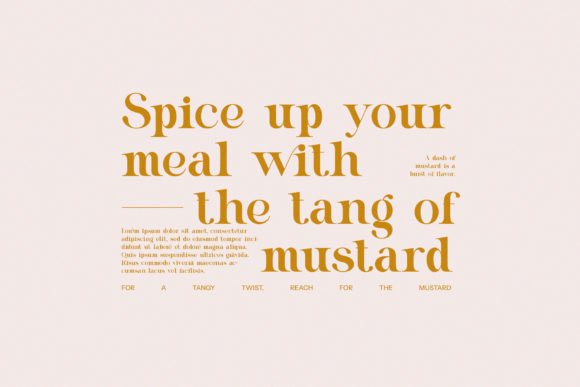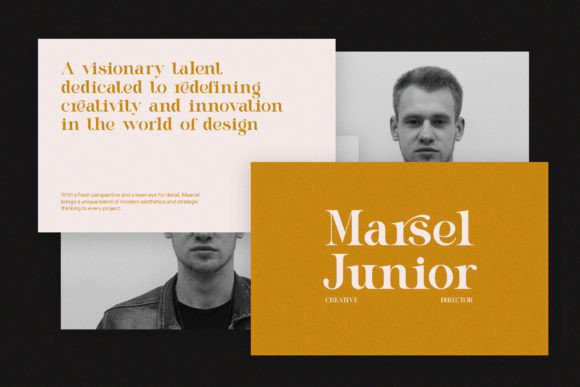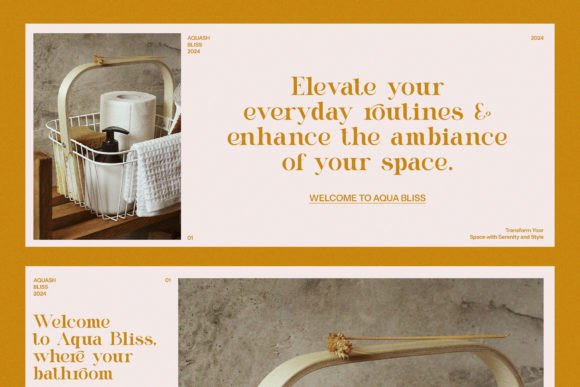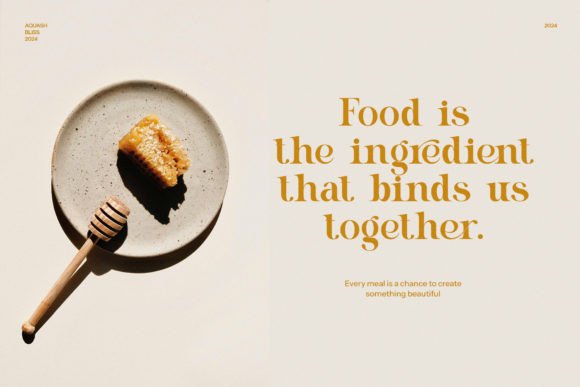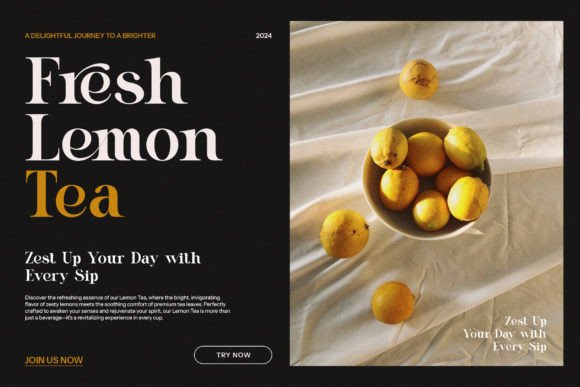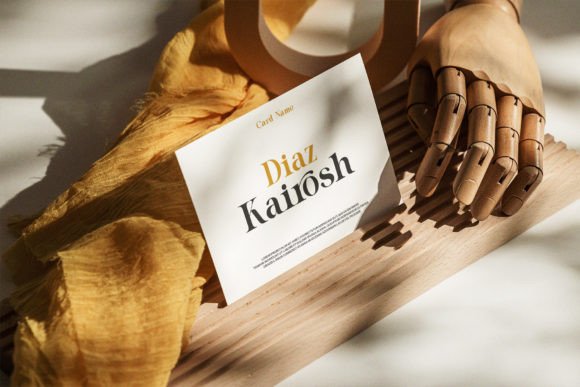
Introduction to Meragi Font
As a designer, there’s nothing quite like the rush of seeing a creative project come to life. The feeling of combining the perfect typography, color palette, and imagery to convey a message or evoke an emotion is truly exhilarating. But what if you had a secret design resource that could elevate your work to the next level? Enter Meragi Font, a sophisticated ligature serif that’s about to become your new go-to.
With its premium quality and luxury feel, Meragi Font is the perfect addition to any design project. Whether you’re working on a high-end fashion brand, a luxury magazine, or a wedding invitation, this typeface is sure to make a statement. And with its unique ligatures, you’ll be able to stand out from the crowd and make your design truly unforgettable.
Honest Review: Meragi Font
As a designer, I’m always on the lookout for high-quality design resources to elevate my creative projects. Recently, I stumbled upon the Meragi Font, and I’m excited to share my honest review.
First impressions count, and the Meragi Font doesn’t disappoint. It has a modern and elegant feel that’s perfect for any design project. One of the standout features of this font is its versatility – it can be used for both digital and print designs.
- What works well: ✨ The Meragi Font is incredibly easy to use, with a simple and intuitive design that makes it a breeze to customize. Its transparent background also makes it a great choice for designers who want to add an extra layer of depth to their designs.
- What works well: ✨ The font is also highly customizable, allowing designers to adjust the size, color, and style to suit their specific needs.
That being said, there are a few limitations to consider. ⚠️ The font may not be suitable for designs that require a lot of bold or dramatic flair, as it can come across as a bit too subtle. Additionally, the font may not be available in as many languages as some other fonts on the market.
Overall, I’m really impressed with the Meragi Font. It’s a high-quality design resource that’s perfect for designers who want to add a touch of elegance and sophistication to their creative projects. Plus, it’s free to download, making it an even more attractive option for designers on a budget.
The Meragi Font is a high-quality, unique design resource ideal for various creative projects. It offers a transparent background, making it versatile for use in different applications.
For best results, use the Meragi Font in conjunction with other high-quality design resources.
Experiment with different font sizes, colors, and arrangements to achieve the desired look.
The Meragi Font is ideal for creative projects such as:
Logos and branding materials
Business cards and letterheads
Infographics and presentations
Brochures and flyers